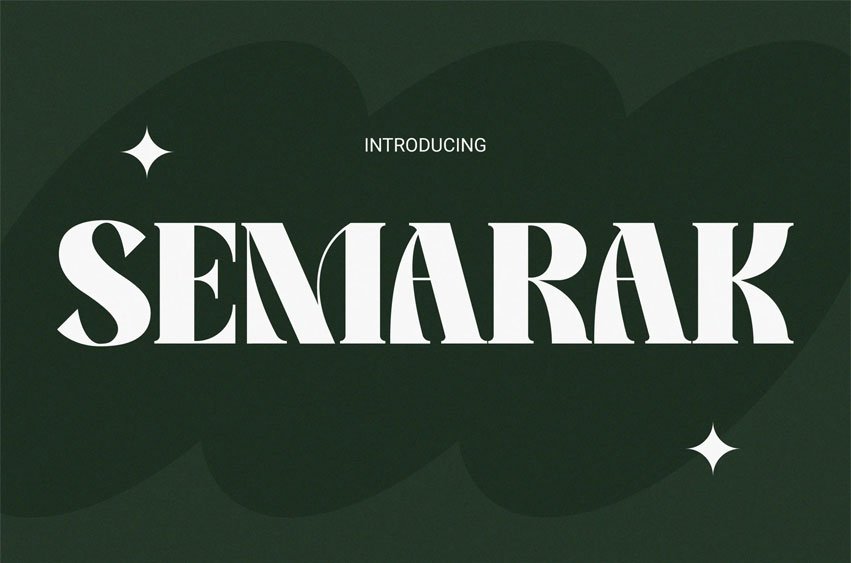
Semarak Font Display Font is a high-class-inspired typeface that blends high-contrast letterforms with a refined geometric balance, giving every design a confident editorial presence. Its sharp serifs, elegant curves, and precise proportions create a style that feels both bold and timeless, perfect for brands that seek sophistication and visual authority.
The letterforms echo the charm of classic fashion typography, making it ideal for magazines, boutique logos, and campaign headlines where visual storytelling and exclusivity matter most.
Semarak brings a runway-ready aesthetic to your creative projects. Whether you’re designing for fashion lookbooks, brand identities, perfume packaging, or high-class social media visuals, Semarak’s structure commands attention while keeping a graceful tone. It bridges traditional elegance and modern minimalism, empowering designers to craft layouts that feel refined, cohesive, and effortlessly stylish.
Key Features: ✦ Distinct Letter Contrast: Creates an upscale, dramatic feel perfect for editorial use. ✦ Elegant Serif Detailing: Adds sophistication and rhythm to titles and brand marks. ✦ Versatile Layout Compatibility: Works beautifully in print, web, and social branding. ✦ High Readability: Balanced proportions ensure clarity across digital and print designs. ✦ Refined Personality: Ideal for brands seeking confidence, grace, and fashion appeal.